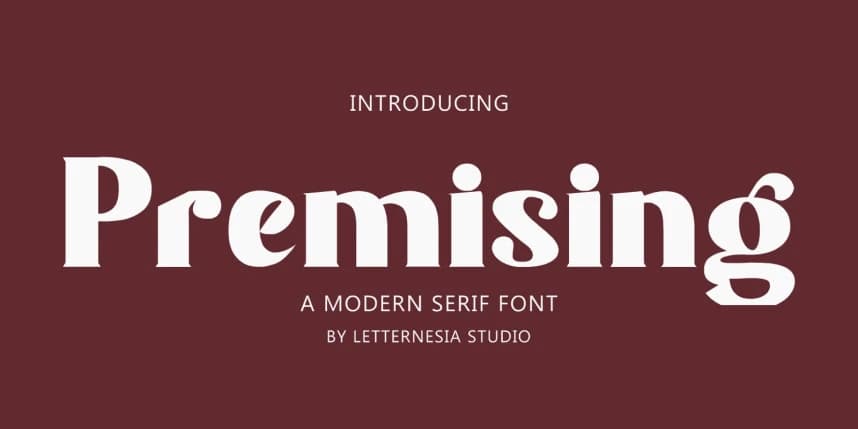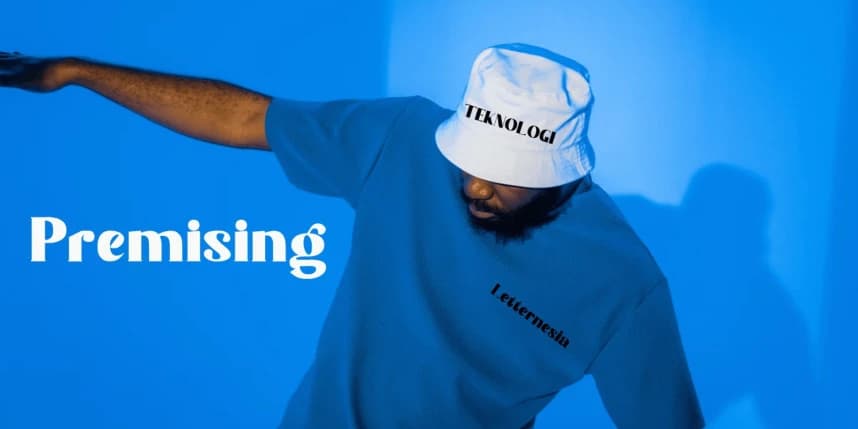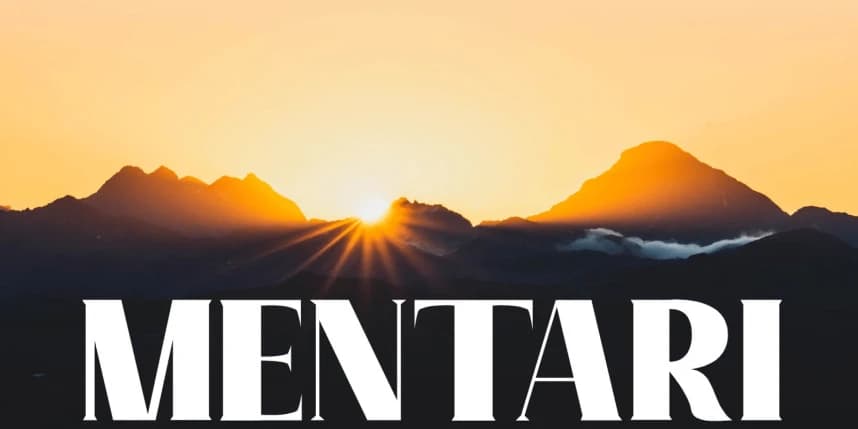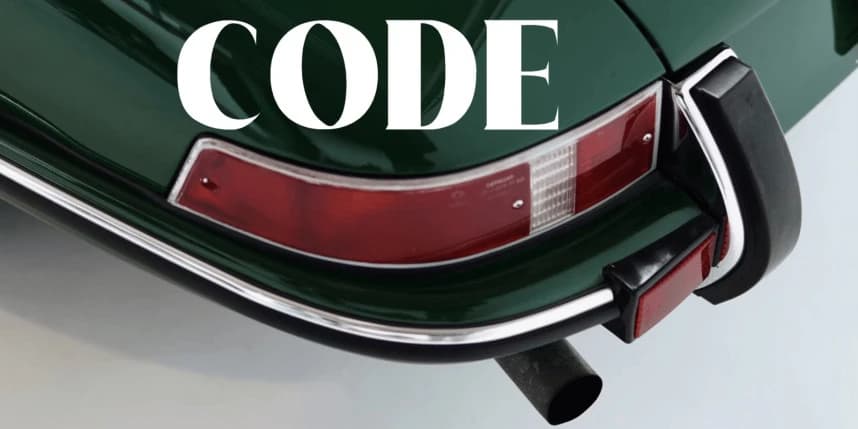
Premising Font
Permising Font is a modern display typeface that blends elegance with bold character. Crafted with smooth curves and sharp edges, this font carries a confident yet approachable personality—making it ideal for branding, editorial design, logos, and high-impact titles.